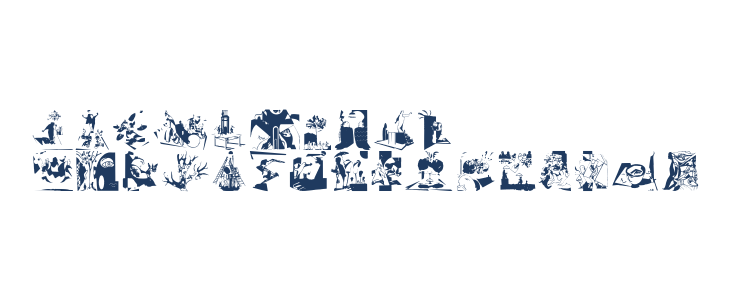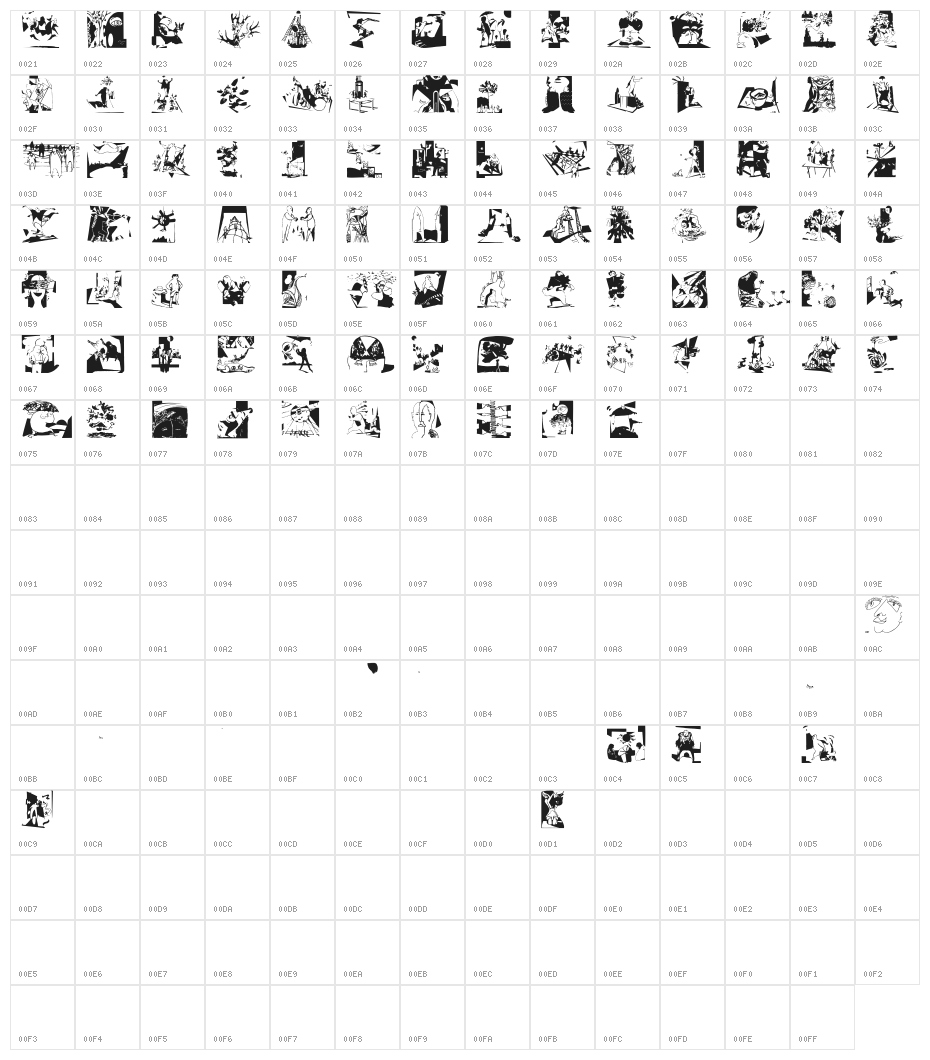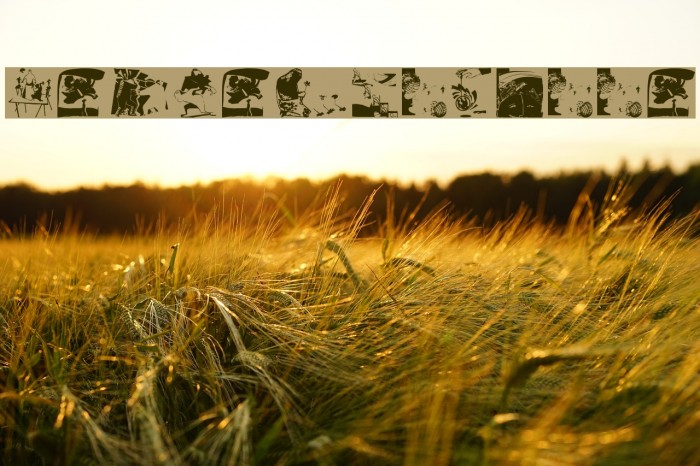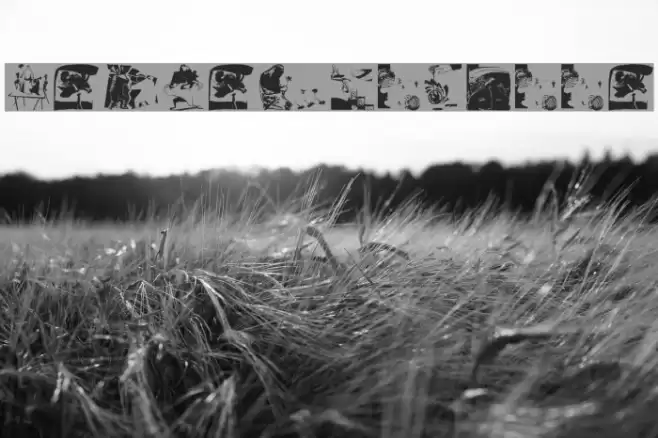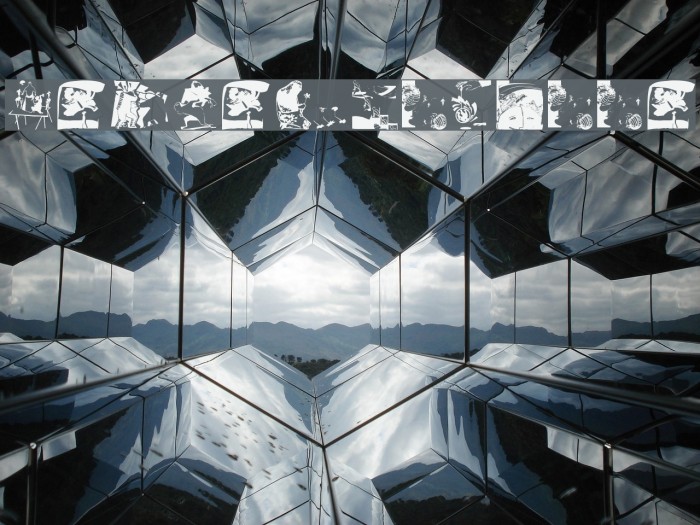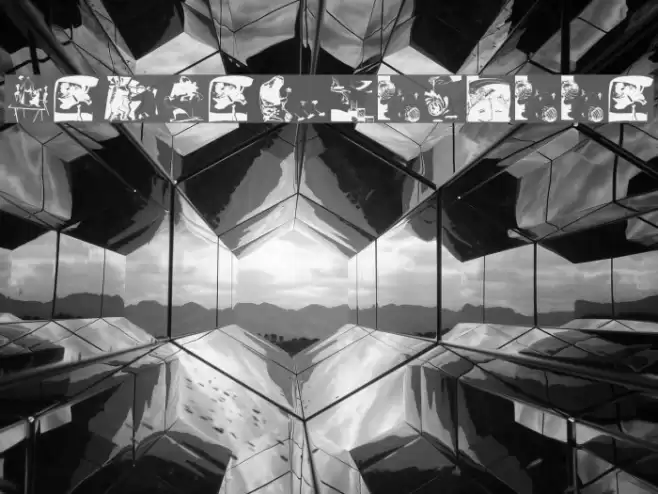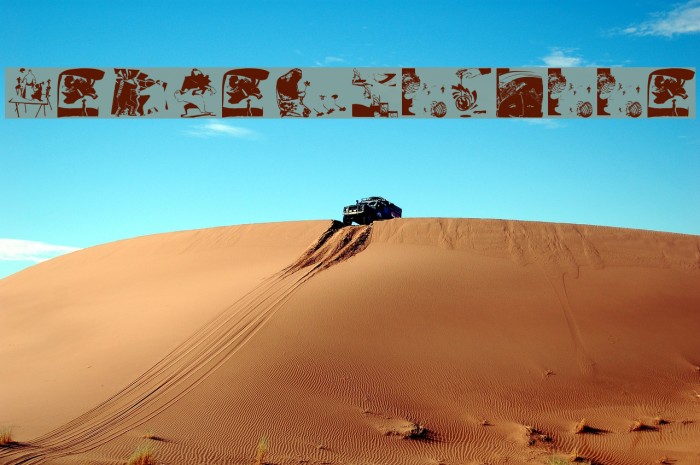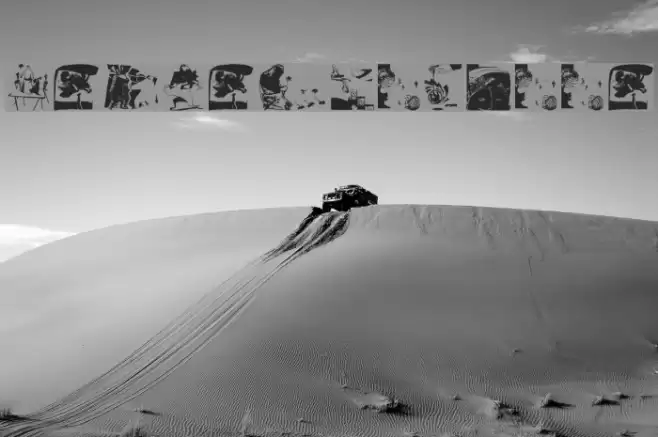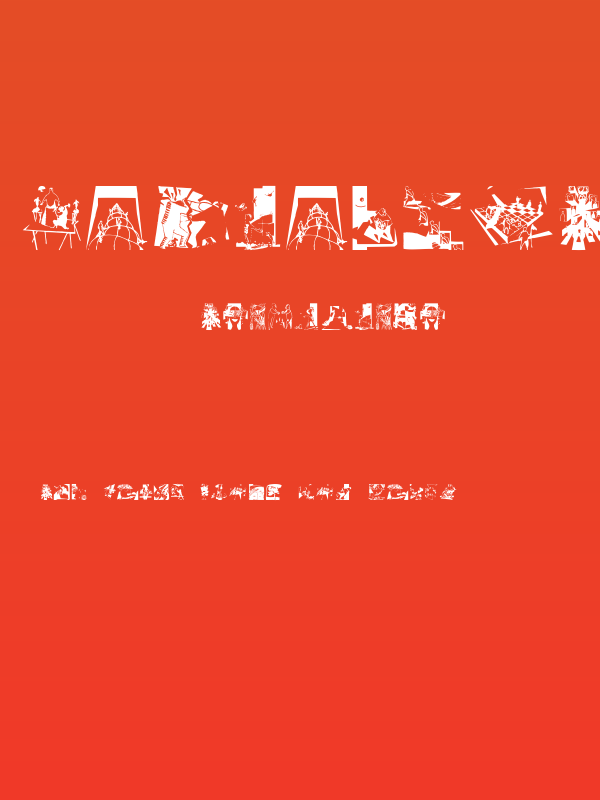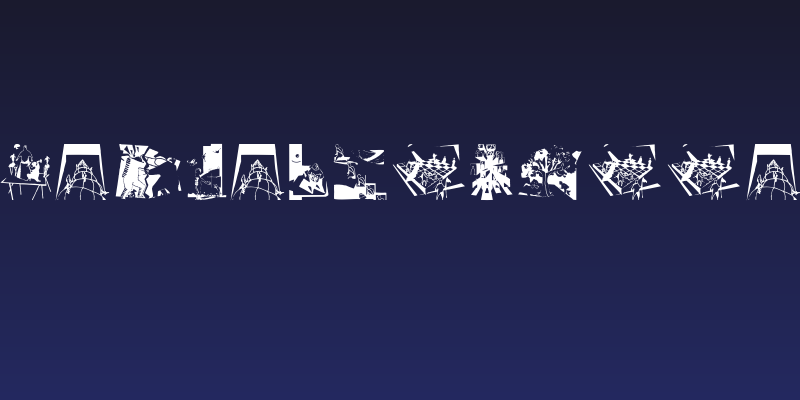
InLandBetween Font
InLandBetween Description
This font is a highly decorative and artistic typeface, where each character is intricately designed with detailed illustrations. The letters are filled with various scenes and figures, creating a unique visual narrative within each glyph. The style is reminiscent of vintage storybook illustrations, with a playful and whimsical touch. The characters are bold and eye-catching, making them suitable for creative and expressive design projects. The overall appearance is dynamic and lively, with each letter offering a distinct and engaging visual experience.
| Use Case | Headlines, Logos, Artistic projects |
| Proposed Projects | Ideal for children's books, artistic posters, creative branding, and any project seeking a whimsical and illustrative touch. |